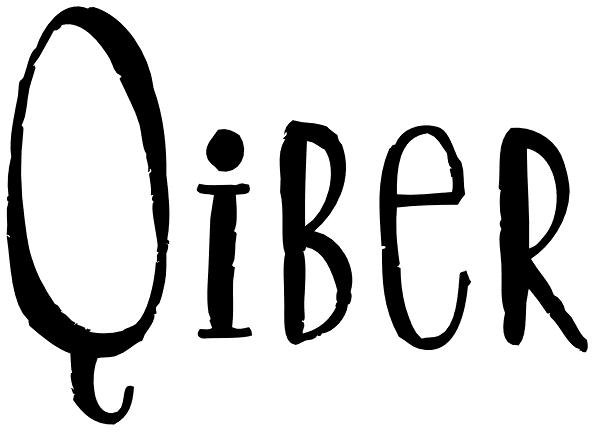
Qiber
Qiber is a condensed handmade font with a unique flavour and personality. Designed primarily for display use, it can be applied in a variety of contexts. Qiber has a friendly and playful feel, which is a result of mixing up small caps within the...